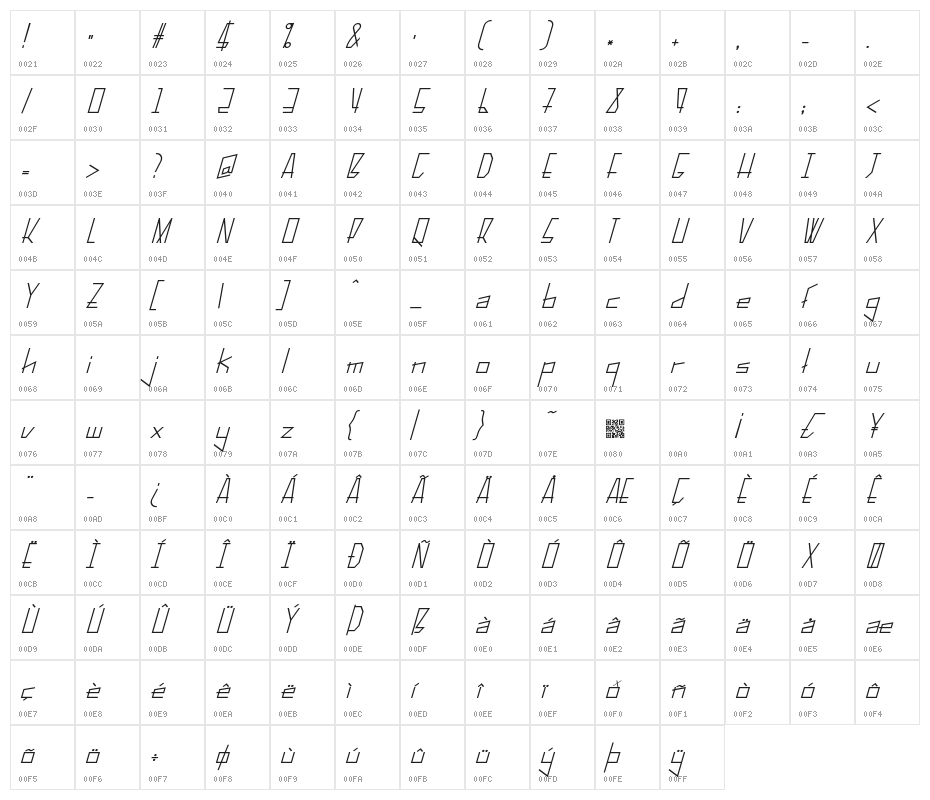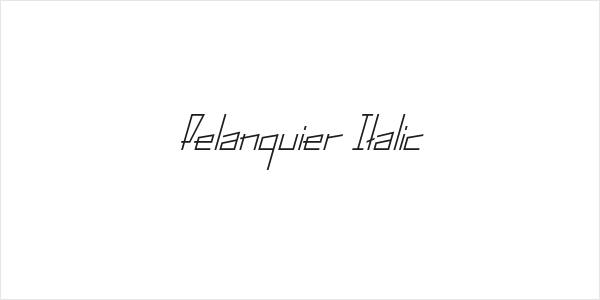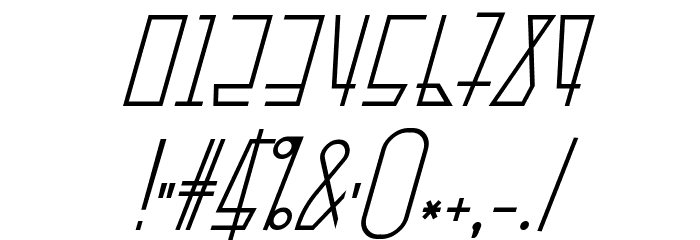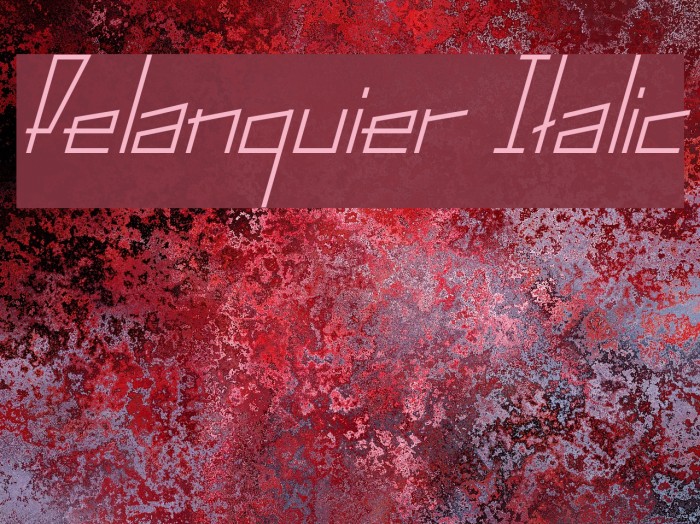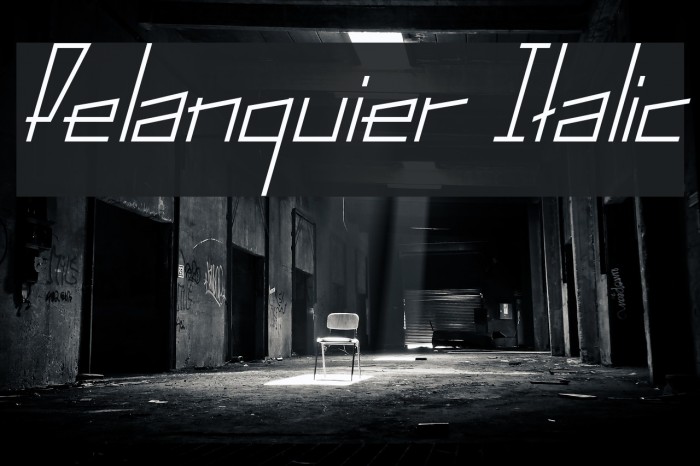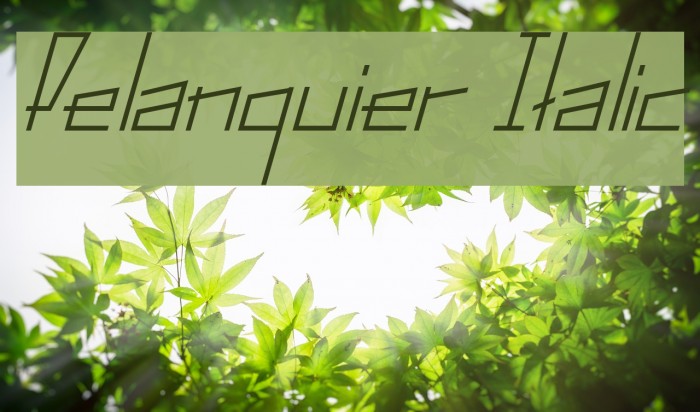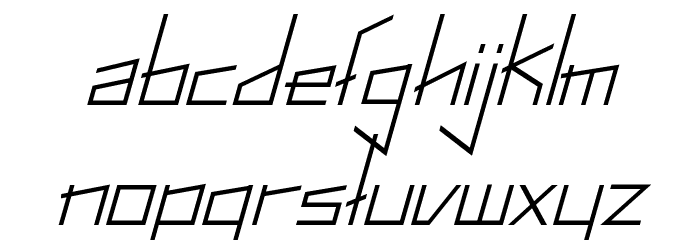
Pelanquier Italic Font
Pelanquier Italic Description
This font features a distinct italic style with sharp, angular lines and a geometric structure. The characters are elongated and slanted, giving a dynamic and modern appearance. The uppercase letters are tall and narrow, while the lowercase letters maintain a consistent slant, enhancing the font's sleek and futuristic look. The numerals and special characters follow the same angular design, ensuring uniformity across all glyphs. The overall design is clean and precise, making it suitable for projects that require a contemporary and edgy aesthetic.
| Overall Style | Modern, Futuristic |
| Proposed Projects | Ideal for branding, posters, and digital media that require a modern and dynamic look. |